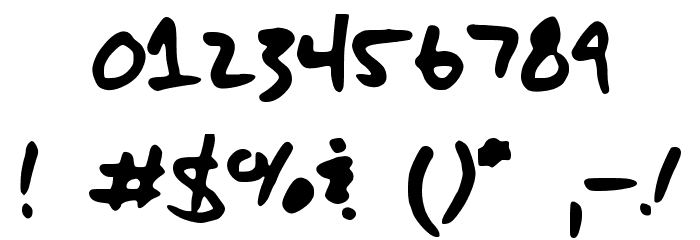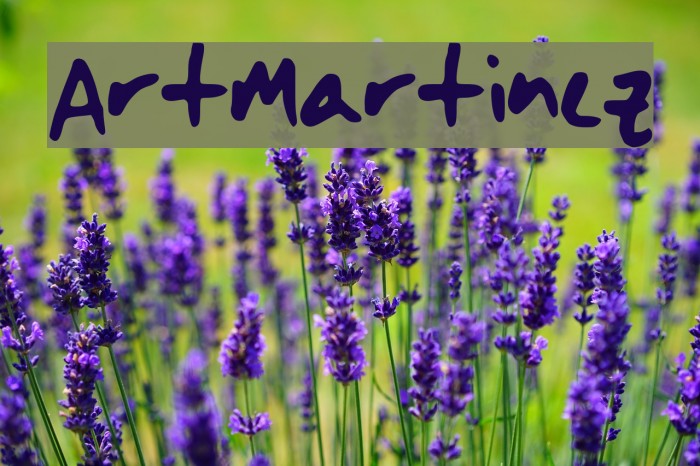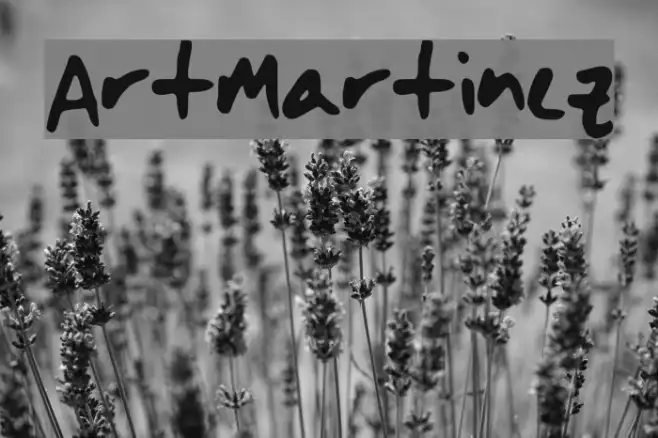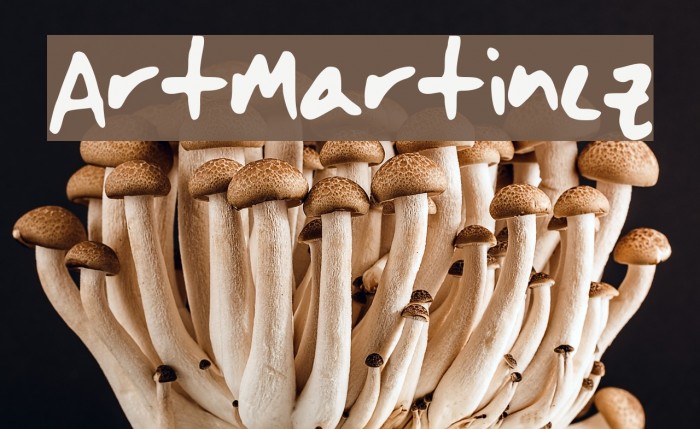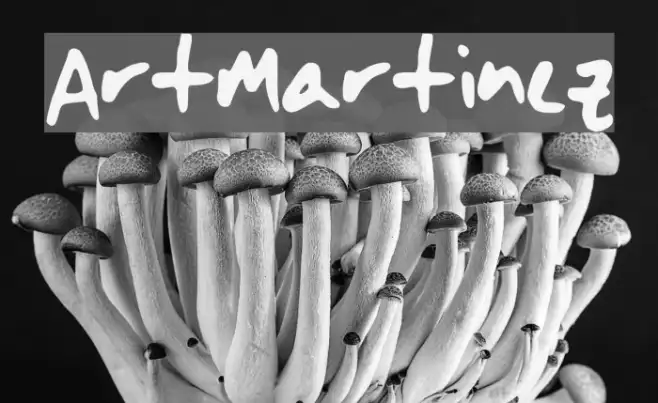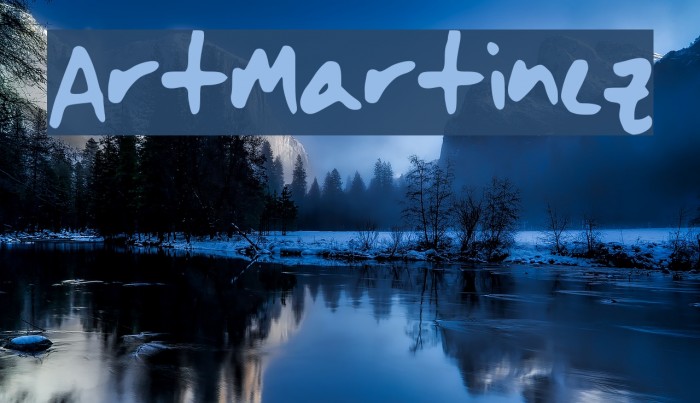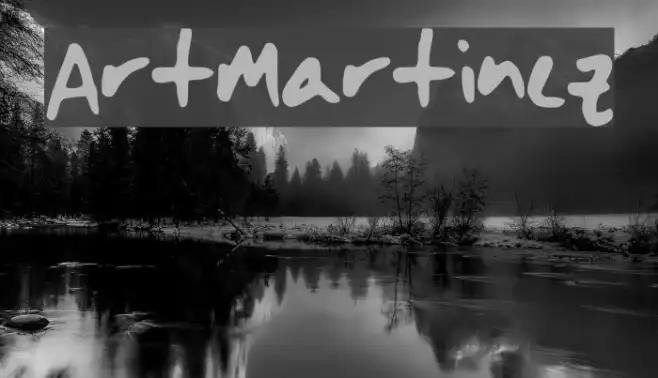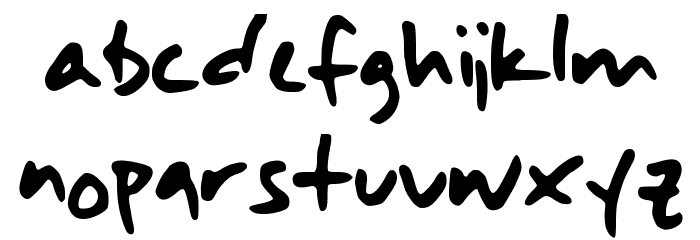
ArtMartinez Font
This font features a bold, handwritten style that exudes a casual and playful vibe. The letters are slightly irregular, with varying stroke thickness that adds a dynamic and lively feel. The uppercase and lowercase characters maintain a consistent flow, while the numerals and special characters complement the overall aesthetic. The font's informal nature makes it ideal for projects that require a personal touch or a creative flair. Its unique character shapes and spontaneous appearance make it stand out, offering a sense of individuality and expression.
A bold, handwritten font with a casual and playful style.
• Proposed Projects: Great for greeting cards, personal branding, creative posters, and informal invitations.
• Category: Handwritten
• Bold: Yes
• Italic: No
• Weight: Bold
• Width: Normal
• Character Spacing: Normal
• Contrast: Medium
• Overall Style: Casual, Playful
• Use Case: Logos, Headlines, Creative projects